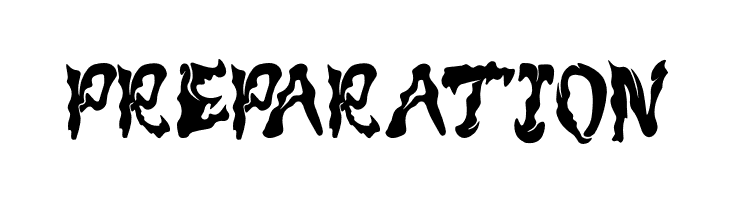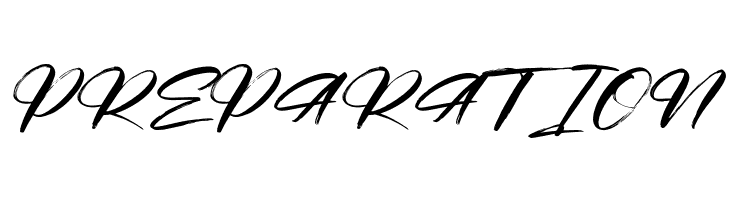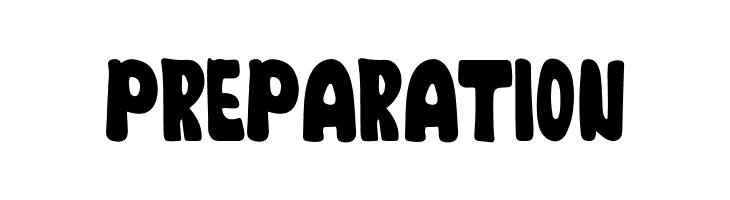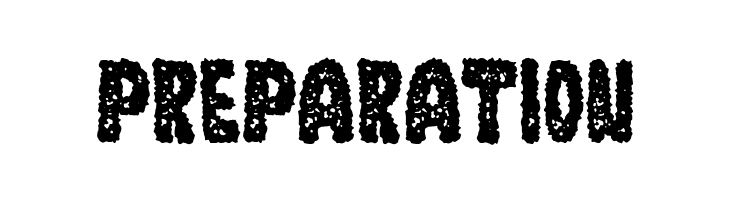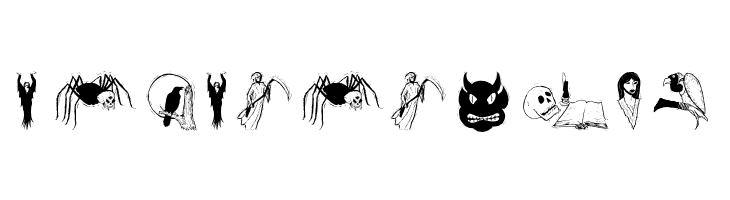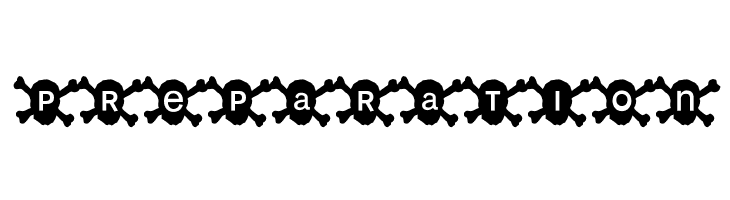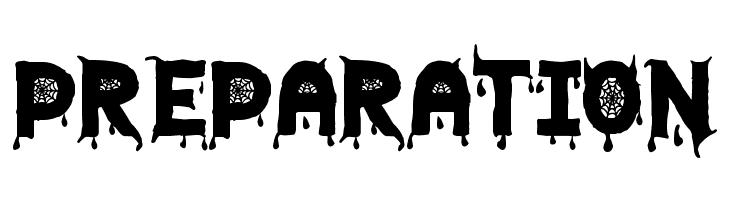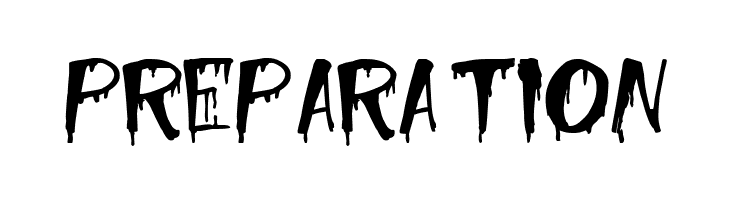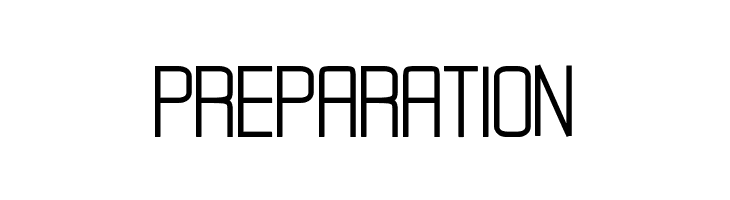
A spooky, Halloween-themed font with dripping, cobwebbed characters.
A spooky, dripping font ideal for Halloween themes.
A bold, playful font with rounded, hand-drawn letterforms.
A playful, rough-textured font with a spooky, hand-drawn style.
Whimsical Halloween icon font with detailed spooky illustrations.
A spooky, jagged font with a dripping effect, perfect for Halloween themes.
A decorative Halloween-themed font with spooky motifs and illustrations.
A geometric, modern font with clean lines and a condensed appearance.
A dynamic, cursive script font with a brush-like texture and elegant flow.
An elegant, flowing script font with smooth, continuous strokes.